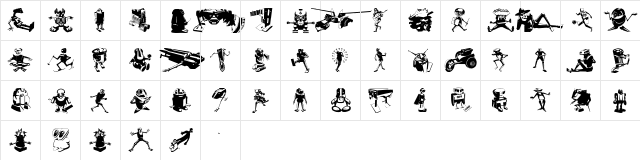
HumanFollowUps Regular
Design Context for HumanFollowUps Typeface
HumanFollowUps is a composed and adaptable typeface that performs quietly and consistently across a wide range of design contexts.